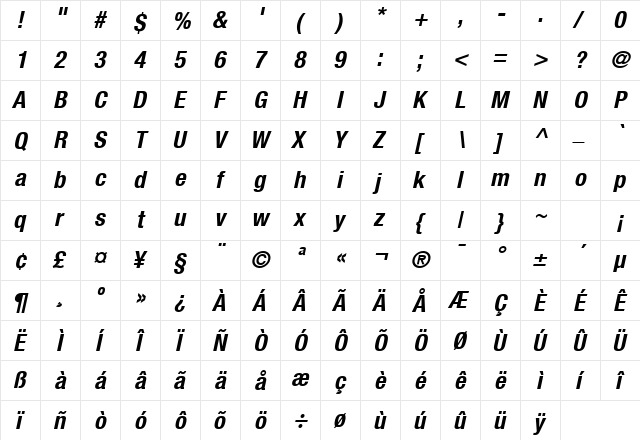
HeaveneticaCond7 BoldOblSH Font Preview
HeaveneticaCond7 BoldOblSH
Design Context for HeaveneticaCond7 Typeface
HeaveneticaCond7 offers clean, dependable letterforms without strong stylistic allegiance, making it a practical choice for designers who need flexibility. The heavy weight commands attention and anchors typographic hierarchies. Its narrow stance lets it pack a punch even in space-constrained designs.